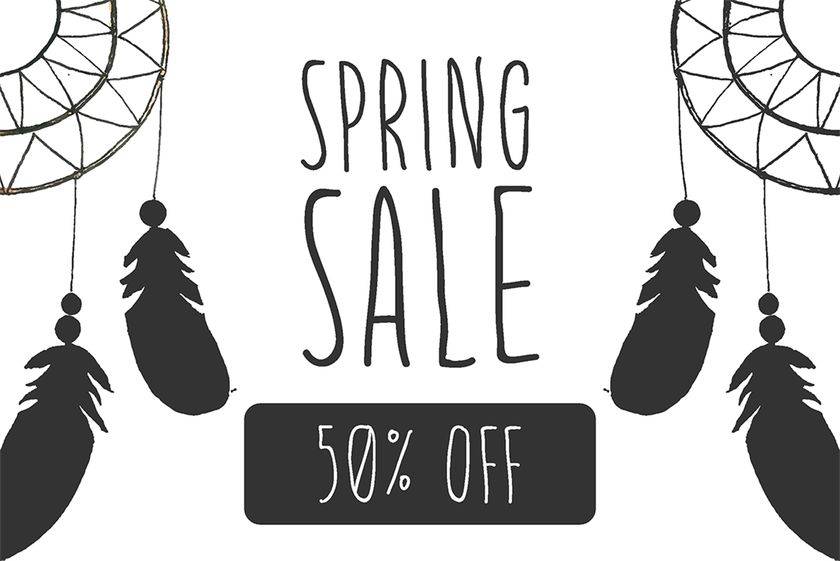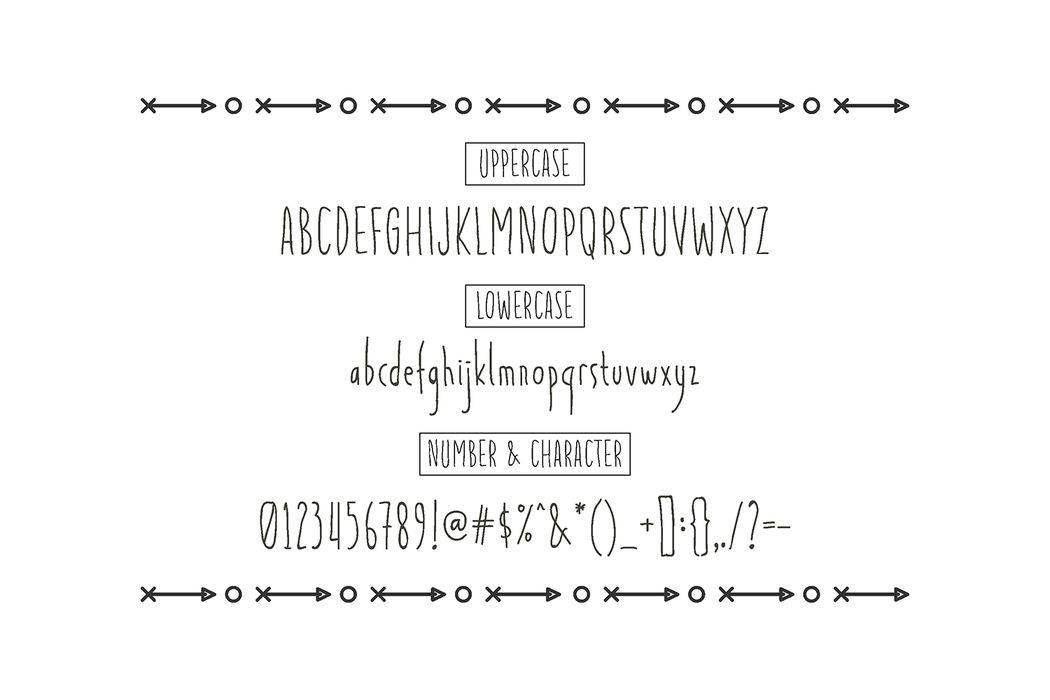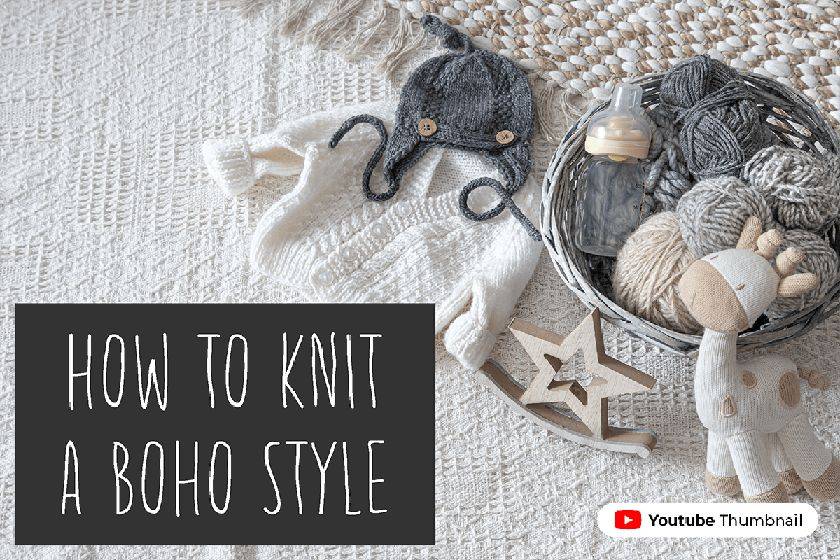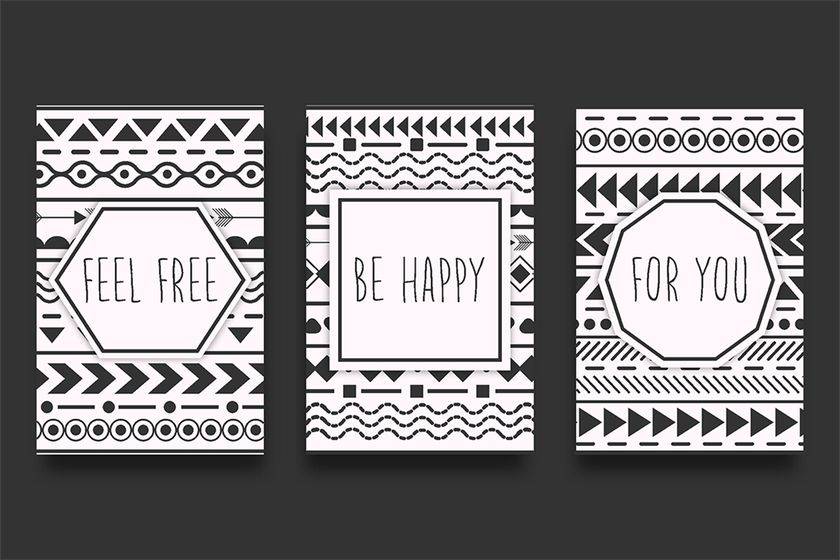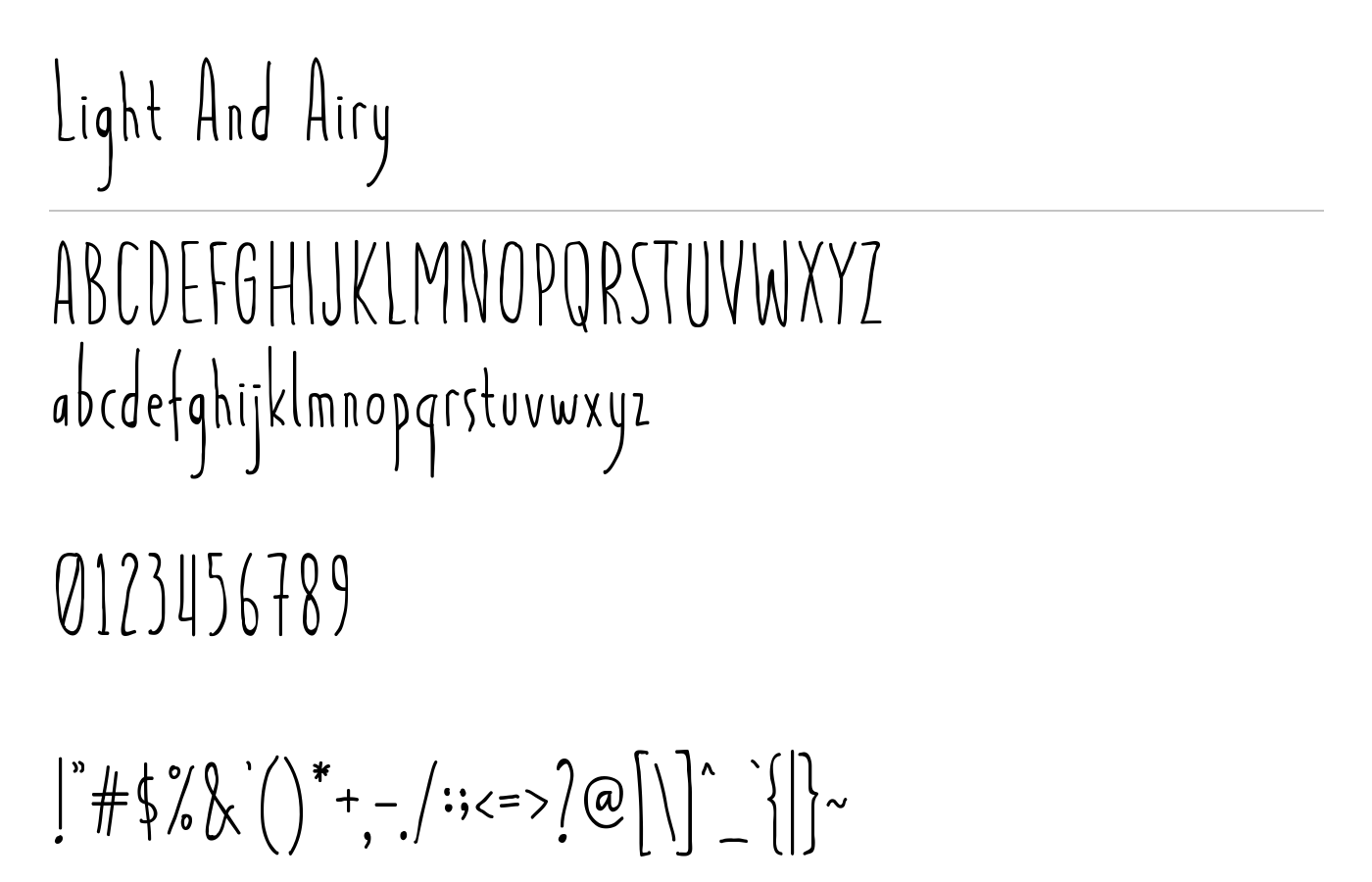
Light and Airy is a delicate, handwritten-style sans serif font characterized by its tall, narrow letterforms and thin strokes that create an elegant and whimsical feel. Its playful yet minimalist design makes it ideal for creative projects, casual branding, and inviting headlines where a light, airy atmosphere is desired. This font works especially well for invitations, personal blogs, or informal editorial content that seeks a friendly and approachable tone.
Light and Airy Font
About Light and Airy Font
| Font family | Light and Airy Font |
| Designer | Sahirul |